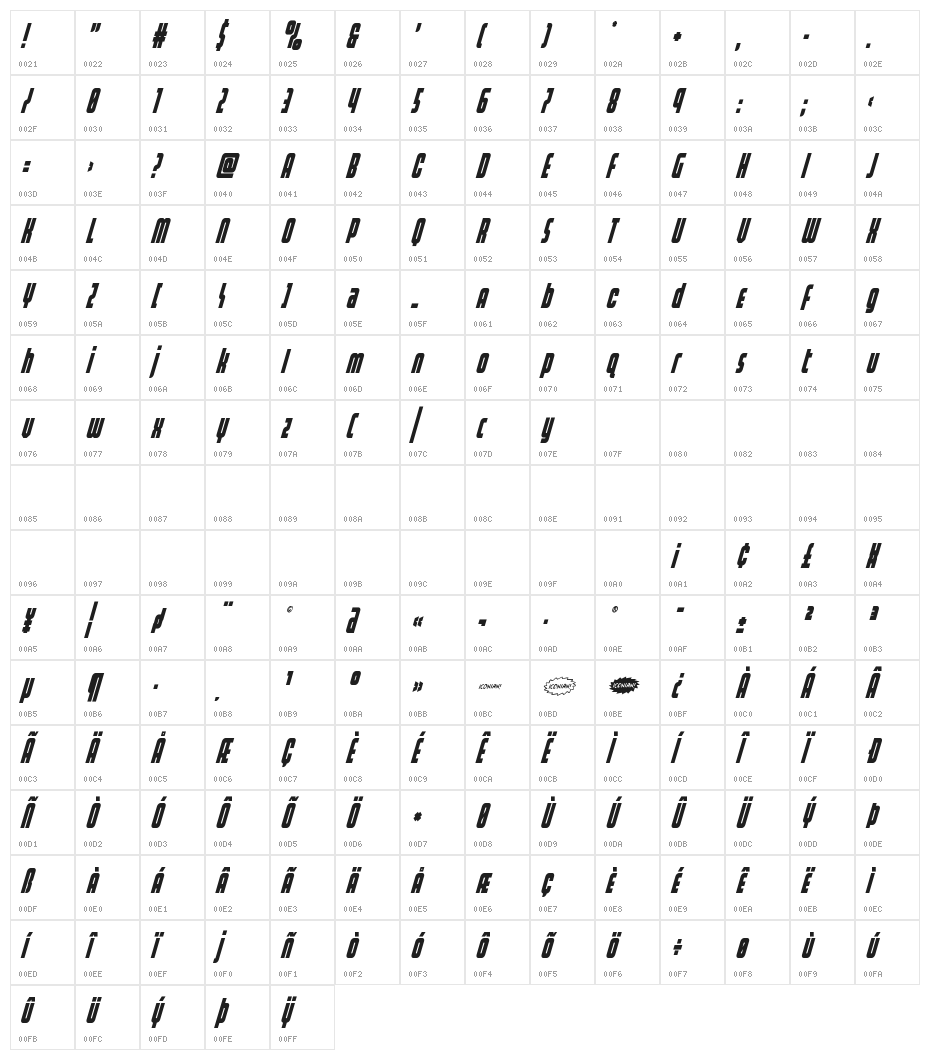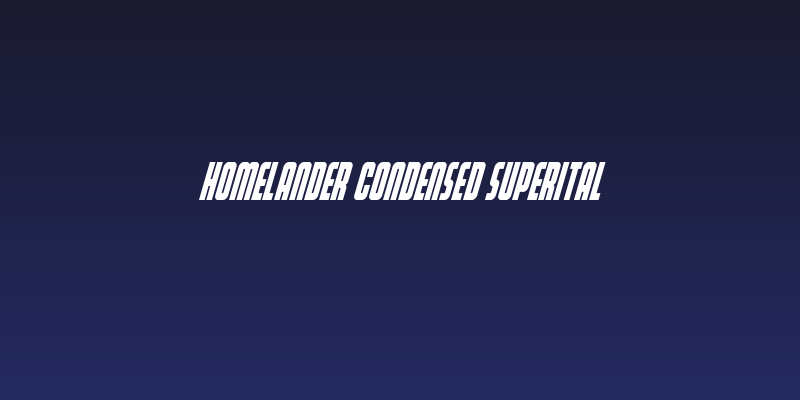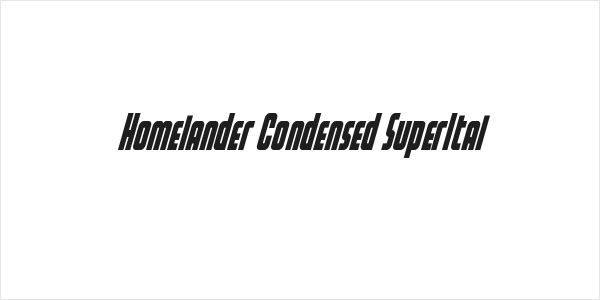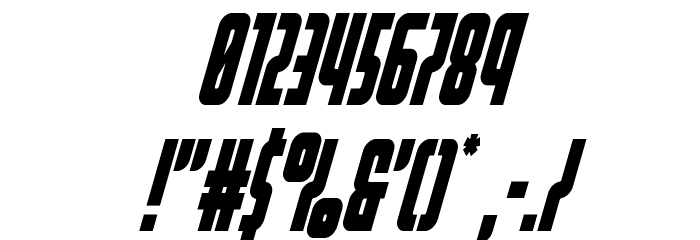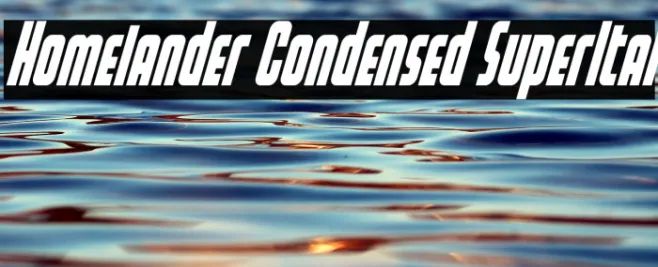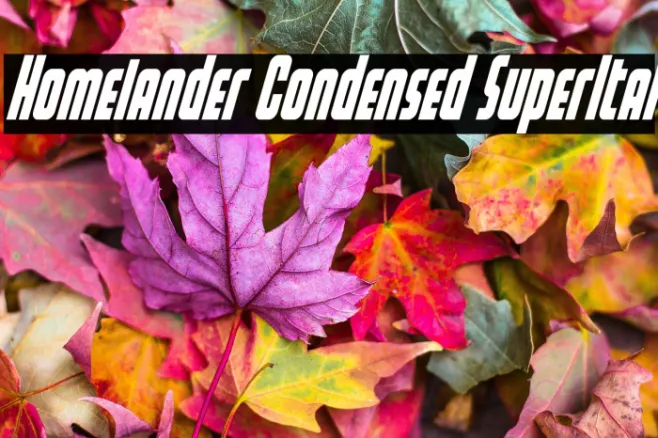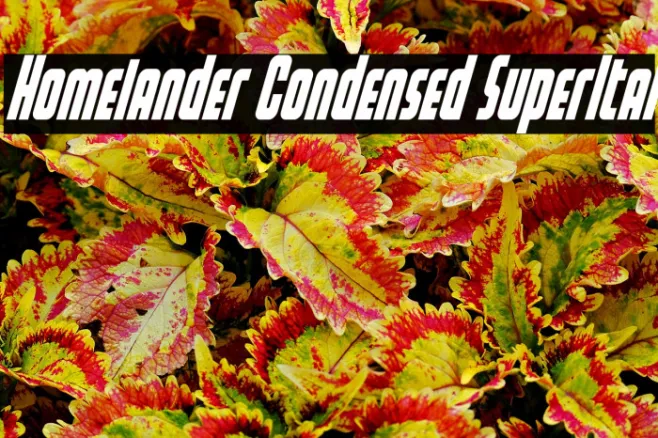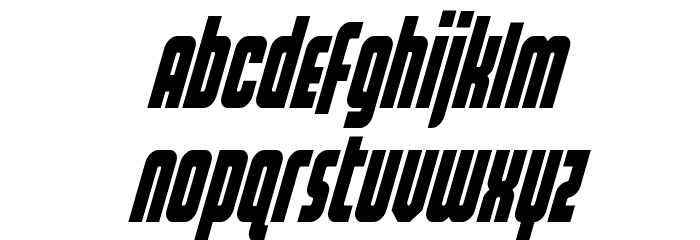
Homelander Condensed SuperItal Font
Homelander Condensed SuperItal Description
This font features a bold and dynamic style with a strong, condensed form. The characters are sharply angled, giving an energetic and forward-moving appearance. The italicized nature of the font adds a sense of speed and modernity, making it stand out in any design. The uppercase and lowercase letters maintain a consistent width, enhancing readability while preserving a compact look. The numbers and special characters are designed to match the overall aesthetic, ensuring uniformity across all elements. This font is ideal for projects that require a bold statement and a contemporary feel.
HOMELANDER-CONDENSED-SUPERITAL UPPERCASE
HOMELANDER-CONDENSED-SUPERITAL LOWERCASE
HOMELANDER-CONDENSED-SUPERITAL OTHER CHARS
| Proposed Projects | Ideal for sports branding, dynamic posters, modern advertisements, and any project needing a bold, energetic typeface. |